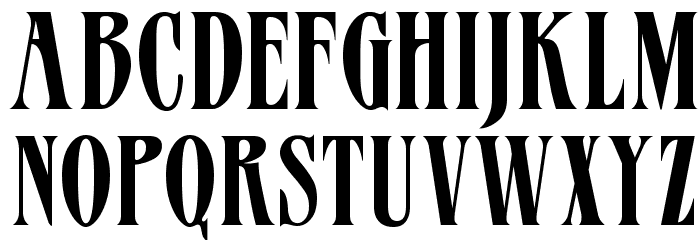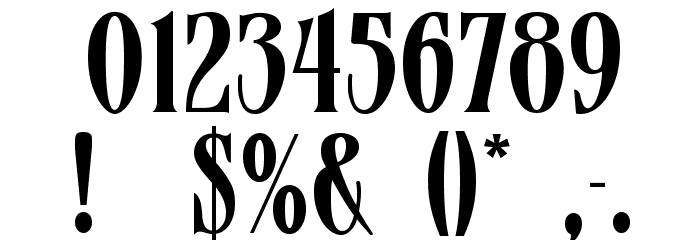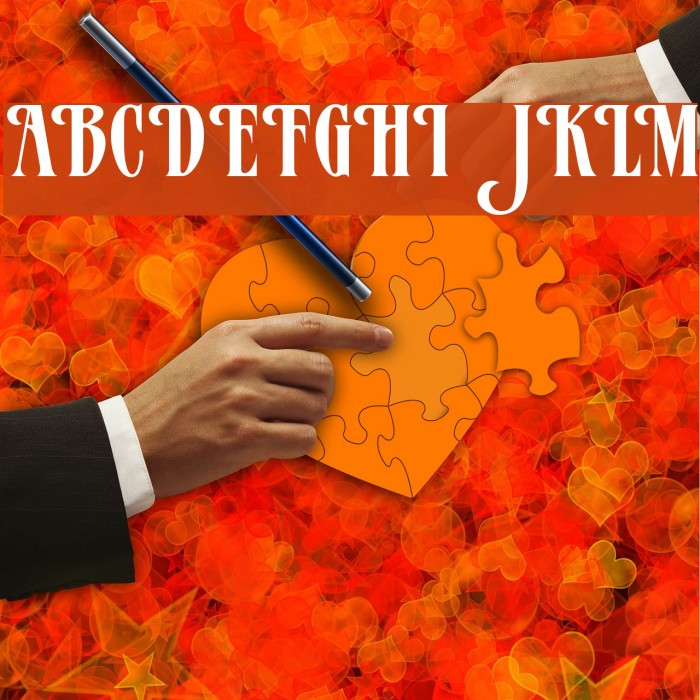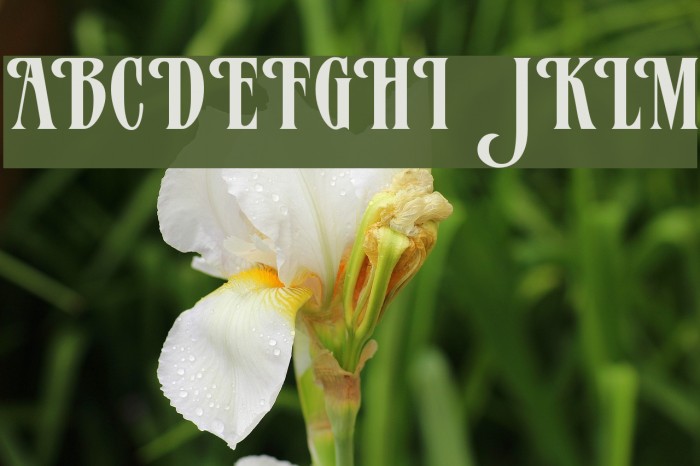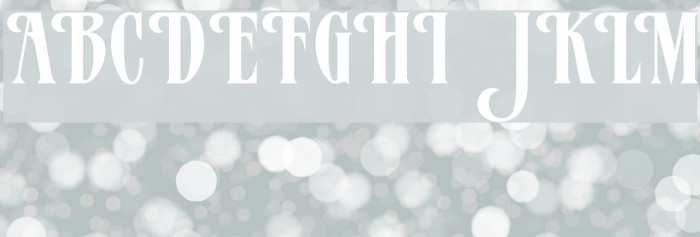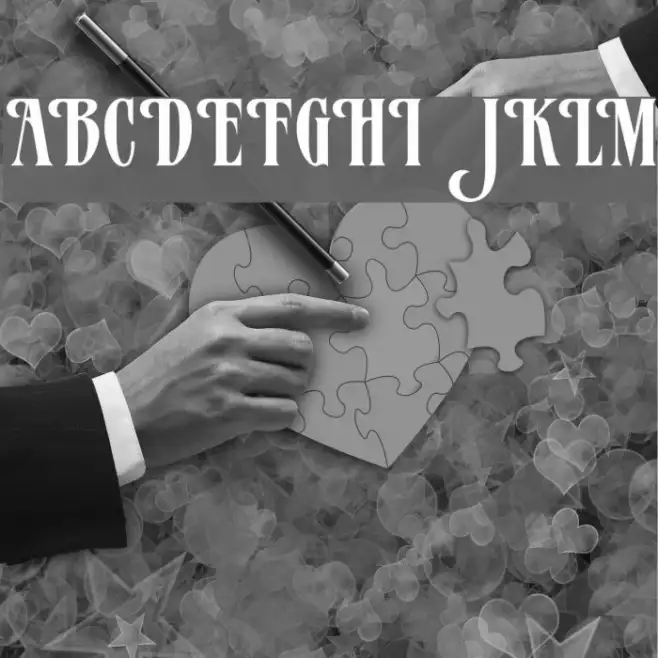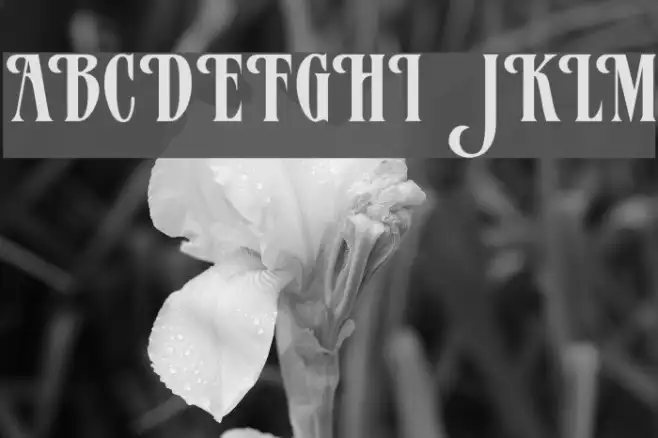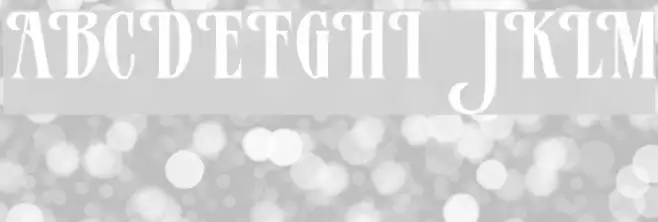
MazamaRegular Font
This font features a bold and dramatic style with high contrast between thick and thin strokes. The characters exhibit a unique blend of elegance and flair, with elongated serifs and a slightly condensed form. The uppercase letters are particularly striking, with a sense of grandeur and sophistication. The lowercase letters maintain a consistent style, complementing the uppercase with their own distinct charm. The numerals are bold and clear, ensuring readability while maintaining the overall aesthetic. Special characters are designed with the same attention to detail, making them suitable for a variety of uses.
A bold, high-contrast serif font with dramatic and elegant features.
- Proposed Projects: Ideal for branding, editorial design, posters, and any project requiring a touch of elegance and impact.